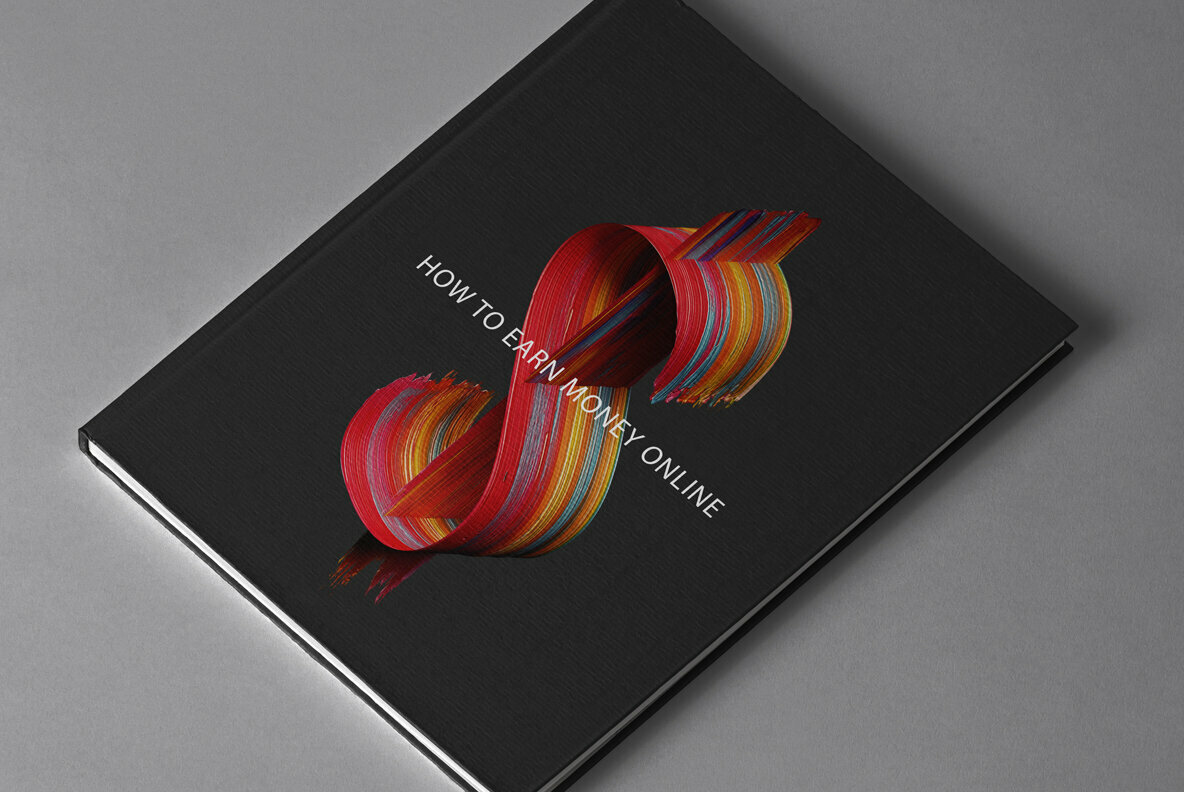
Masterpiece SVG Font is a paint font that shows the best features of paint typography like smooth lines, brush strokes, uncommon mixing of colors and, of course, unbridled imagination. For creation of this 3D font we had to examine a lot of old paintings to understand the principle of the Renaissance pictorial art. You can see the result of this analysis right in the colorful letters of Masterpiece Font. As you can notice we choose an intriguing palette of several colors the great painters loved to use in their oil brushworks. Our artistic typeface reduplicates their vision of beauty and reconceptualises it for the modern graphic design era.
An artistic typeface must deliver an inspirational message. Masterpiece Font is about encouraging and bewitching people and that’s why it wold be thrilling to see this handmade font on a sophisticated design concept for, let us say, a picture gallery, a museum exhibition or even a graphic design school. The unique typeface will also help to make any promotional campaign more successful, and for this reason you can use Masterpiece Font in your ads.
Masterpiece SVG Font. A high definition OpenType-SVG font with built-in 3D.